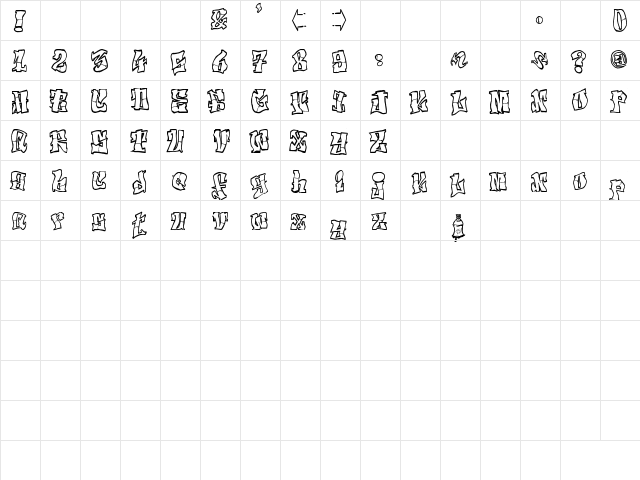
El&Font Tag! Regular
El&Font Tag! is a composed and adaptable typeface that performs quietly and consistently across a wide range of design contexts.